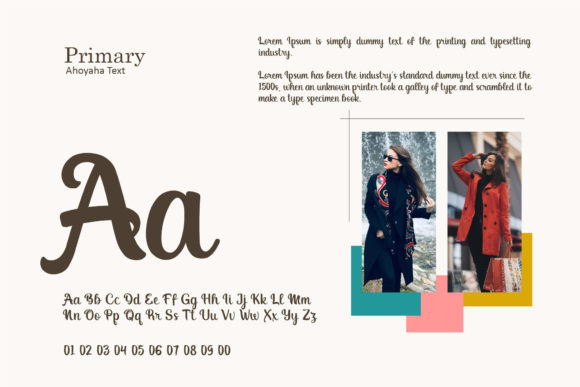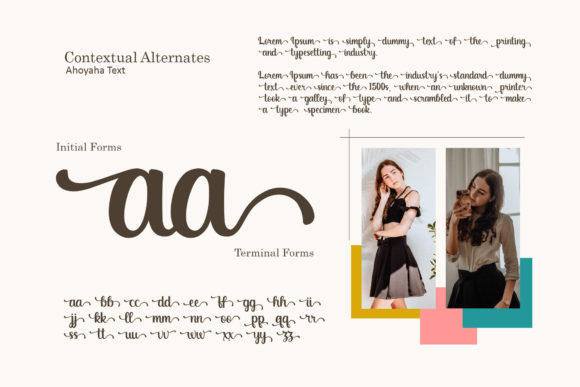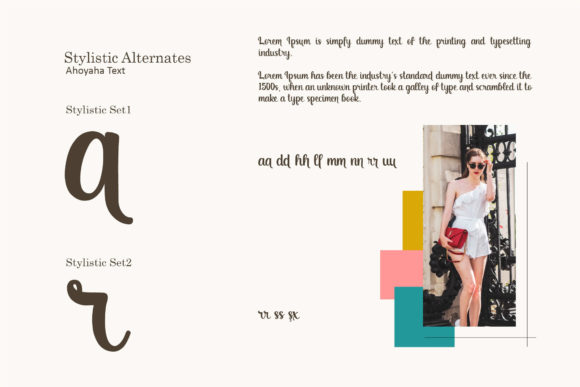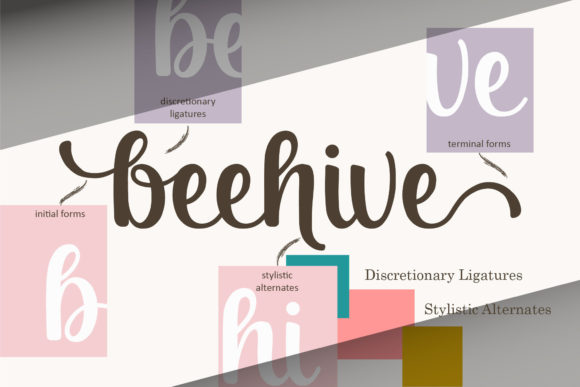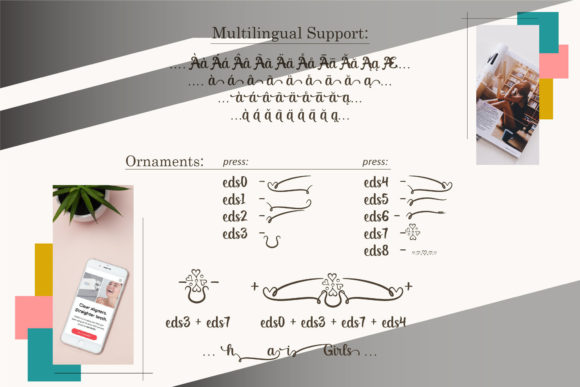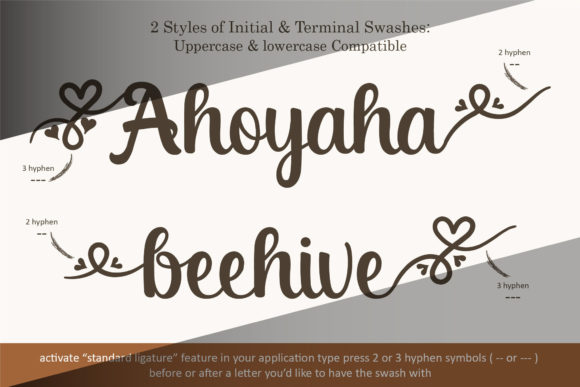
Aho Yaha Font: Elevate Your Designs with a Timeless Handwritten Style
Are you on the hunt for a font that can add a touch of elegance and personality to your designs? Look no further than the Aho Yaha Font. This lovely and timeless handwritten font is perfect for creating eye-catching logos, branding, and quotes that will leave a lasting impression on your audience.
The Charm of Aho Yaha Font
Aho Yaha Font boasts a unique and charming handwritten style that exudes warmth and sophistication. Its elegant strokes and fluid movements make it an ideal choice for designers and crafters who want to add a personal touch to their work. Whether you’re creating a logo, branding materials, or social media graphics, Aho Yaha Font is sure to make your designs stand out.
One of the standout features of Aho Yaha Font is its PUA (Private Use Area) encoding. This means that you can access all of the glyphs and swashes with ease, giving you maximum flexibility and creative control over your designs. With PUA encoding, you can effortlessly navigate through the font’s extensive character set, including alternates, ligatures, and swashes, to create stunning and unique visuals.
Aho Yaha Font is a versatile font that is perfect for a wide range of design applications. Whether you’re a professional designer or a crafter, this font is sure to become a staple in your collection. Here are just a few ways you can use Aho Yaha Font to elevate your designs:
- Quotes and Posters: Add a touch of elegance and sophistication to your quotes and posters with Aho Yaha Font’s beautiful handwritten style.
- Social Media Graphics: Stand out on social media with eye-catching graphics that feature Aho Yaha Font’s unique and charming style.
- Stationery and Packaging: Add a personal touch to your stationery and packaging with Aho Yaha Font’s elegant and sophisticated style.
Why Choose Aho Yaha Font?
With so many fonts available, why choose Aho Yaha Font? Here are just a few reasons why this font stands out from the rest:
- Unique and Timeless Style: Aho Yaha Font boasts a unique and timeless handwritten style that will never go out of fashion.
- Ease of Use: With PUA encoding, you can access all of the glyphs and swashes with ease, making it simple to create stunning designs.
- Versatility: Aho Yaha Font is perfect for a wide range of design applications, from logos and branding to quotes and social media graphics.
- High-Quality Design: Aho Yaha Font is designed with high-quality craftsmanship, ensuring that your designs look professional and polished.
- Lovely and timeless handwritten font
- Perfect for logos, branding, quotes, and more
- High-quality design